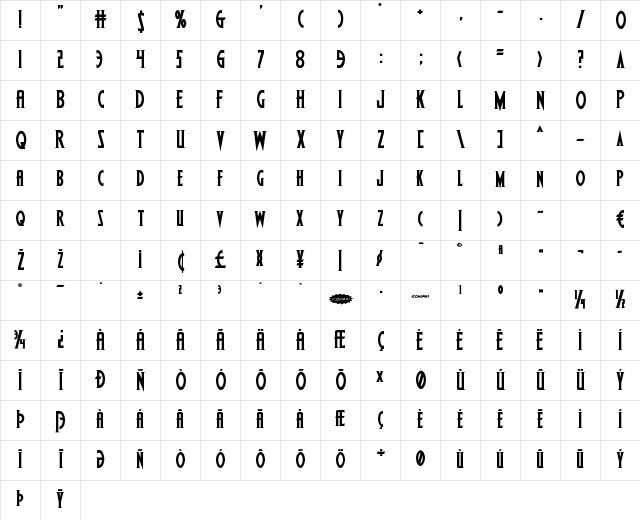
Wolf's Bane II Regular
Wolf's Bane II Family
Design Context for Wolf's Bane II
Wolf's Bane II is a composed and adaptable typeface that performs quietly and consistently across a wide range of design contexts.